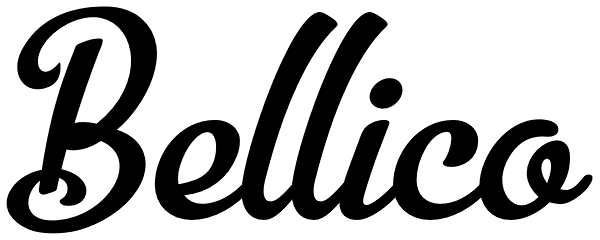
Bellico
Bellico is a beauty script typeface with a large range of alternates that fits any kind of various purpose with a bunch of alternative character to easily create cool text,logos, headlines. etc. available through OpenType features. The OpenType...